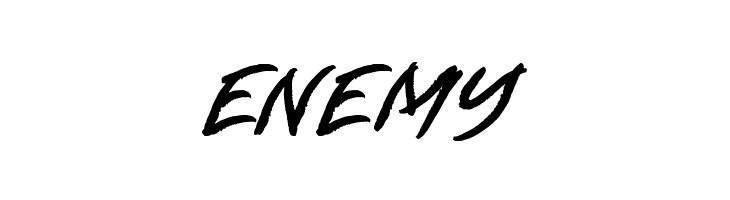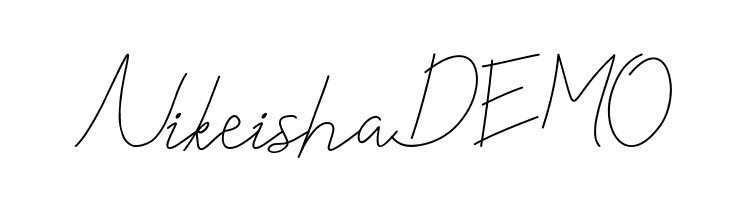
A playful, hand-drawn font with rounded edges and a whimsical style.
Playful skull and crossbones icon font with bold, circular glyphs.
A diverse set of heart shapes with unique patterns and designs.
A flowing, cursive font with a handwritten, elegant style.
A bold, brush-style font with dynamic, hand-painted strokes.
A sharp, italic font with bold, angular characters and a dynamic style.
A playful script font with fluid, connected strokes and a handwritten feel.
A bold, chunky, and playful font with a retro-modern vibe.
A bold, rounded, and condensed font with a friendly and impactful style.
A bold, geometric font with sharp angles and a modern graffiti style.
设计师偏爱 Sweet Dessert, Skallen Regular, Hearts Shapes Tfb, Nathiya and DavitonDEMO,因为其造型干净、适用范围广—— 从品牌识别到落地页、海报都能胜任。